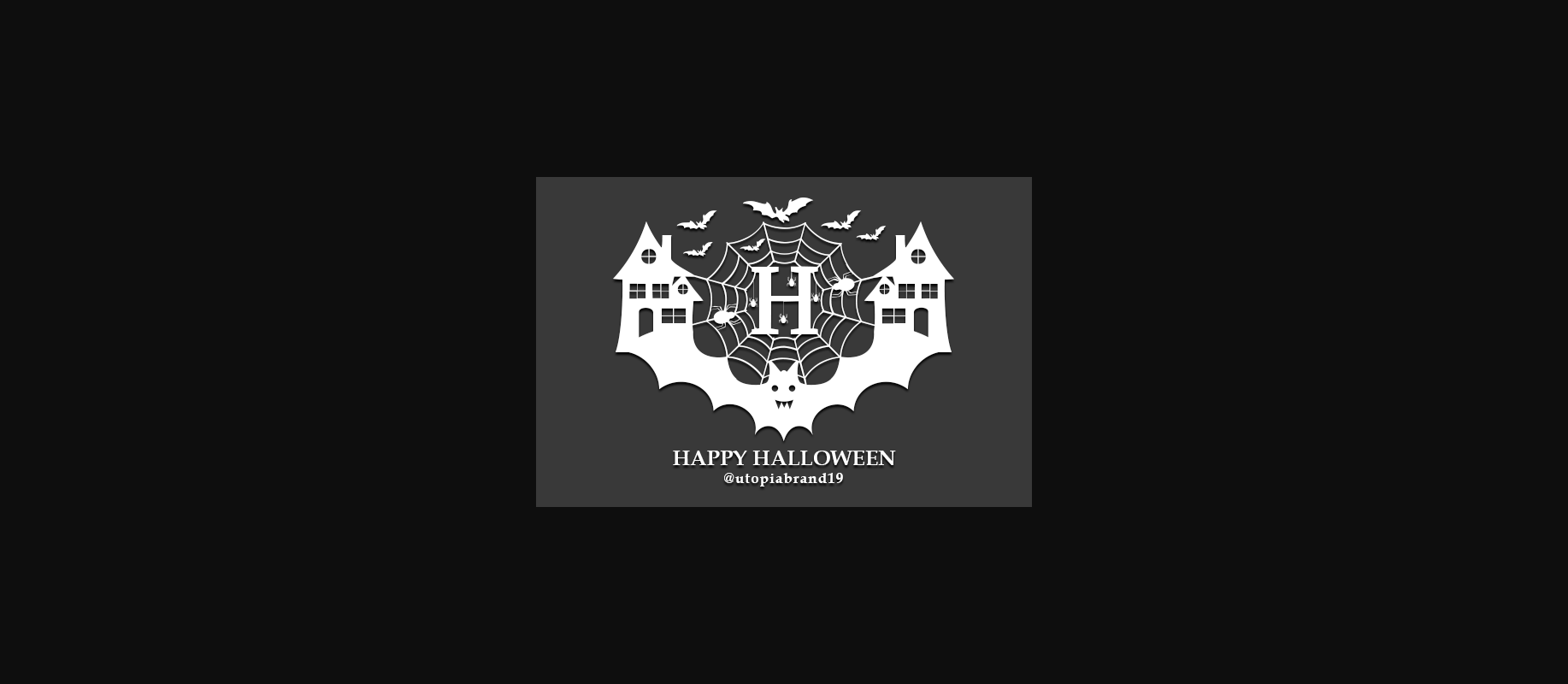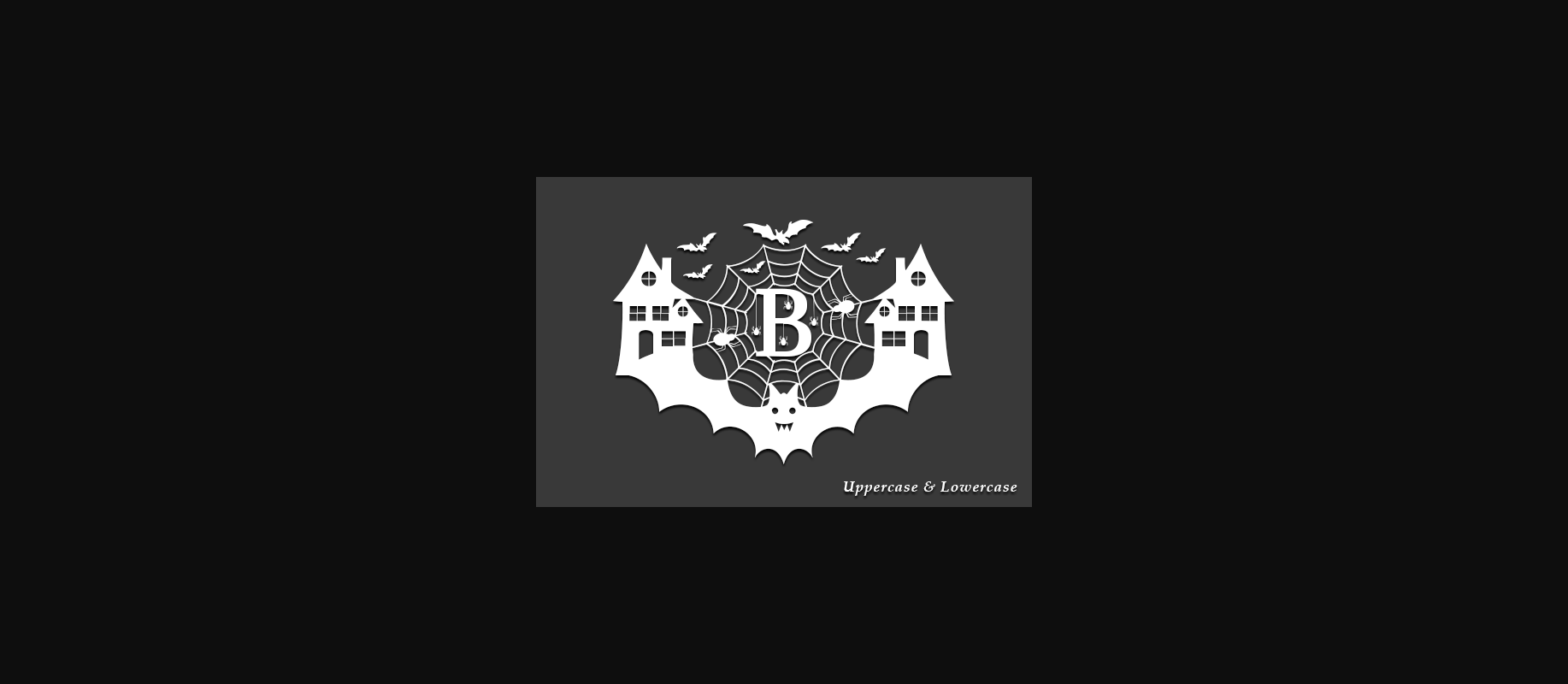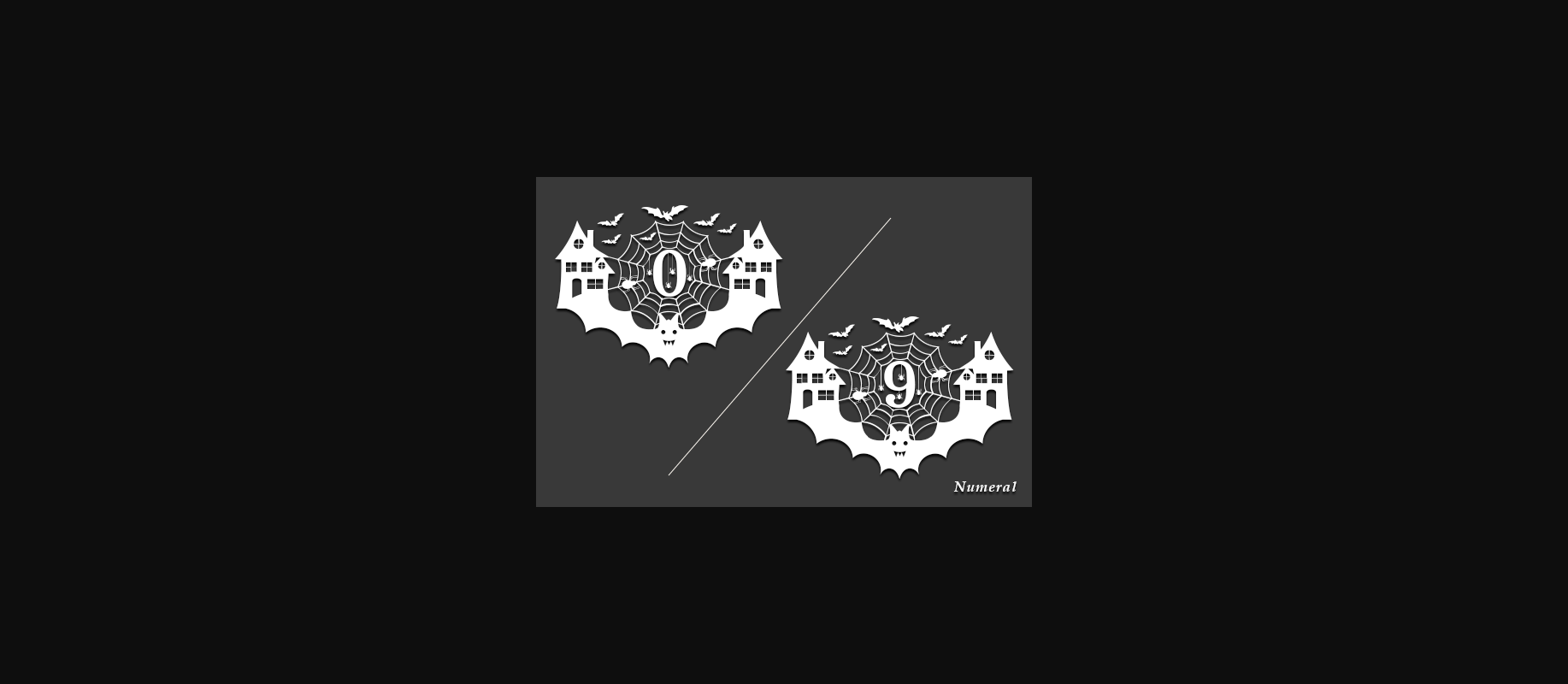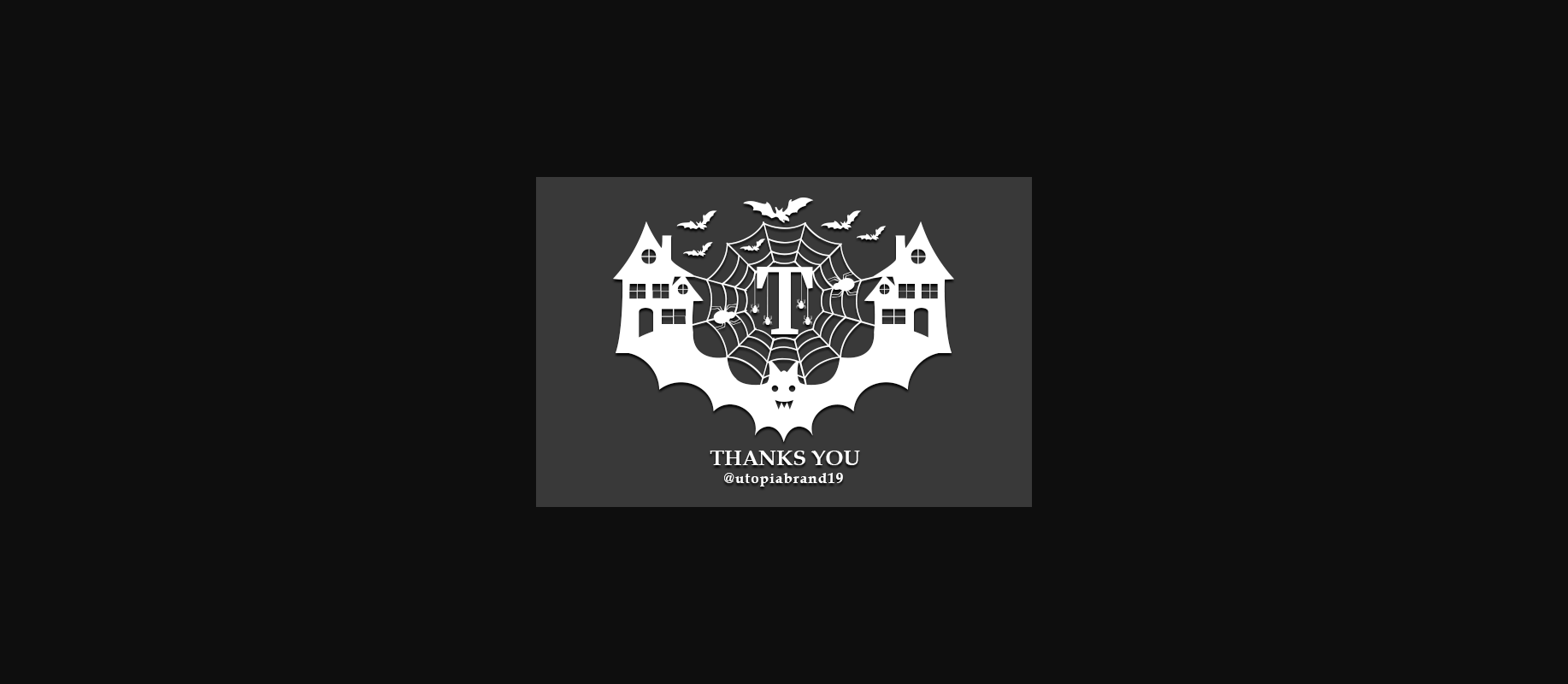
Happy Halloween Font
About Happy Halloween Font
Happy Halloween is an incredibly unique and spooky decorative font. Add it to each of your Halloween designs and make them instantly come to life.